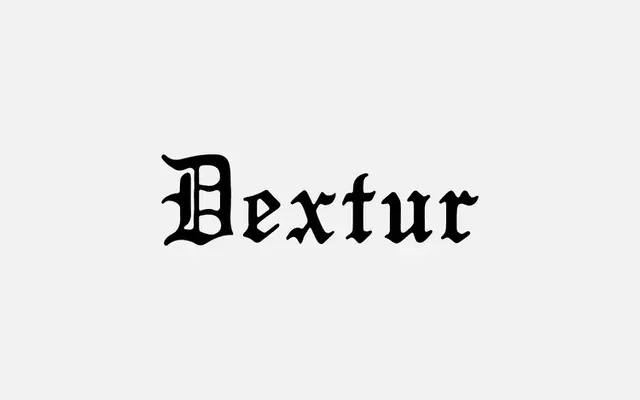
A calligraphic blackletter with a rugged edge, aimed at classical and grungy aesthetics.
Dextur takes traditional blackletter scripts as its starting point and applies a rougher, more contemporary sensibility. The calligraphic construction keeps it legible and rooted in historical letterforms, while the rugged texture makes it suitable for editorial or branding work that sits outside clean, polished territory. Delivered as a single OTF file, it is a straightforward, affordable option for display use.
Described explicitly as a modern interpretation of traditional blackletter scripts with calligraphic and rugged qualities, placing it firmly in the blackletter category.